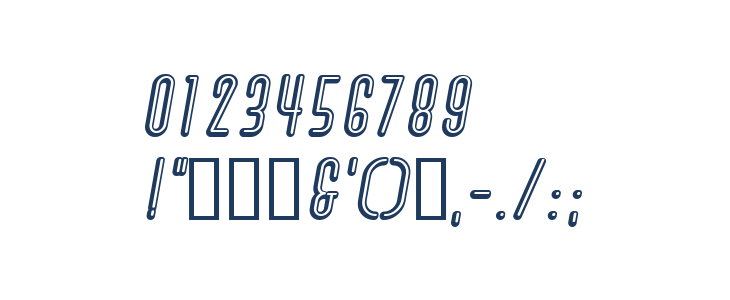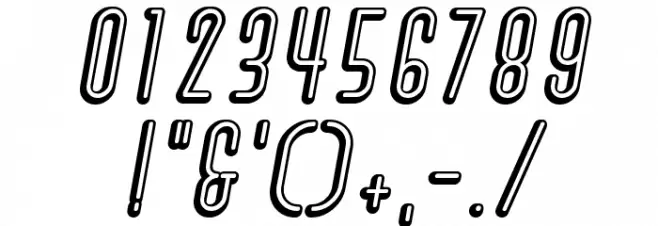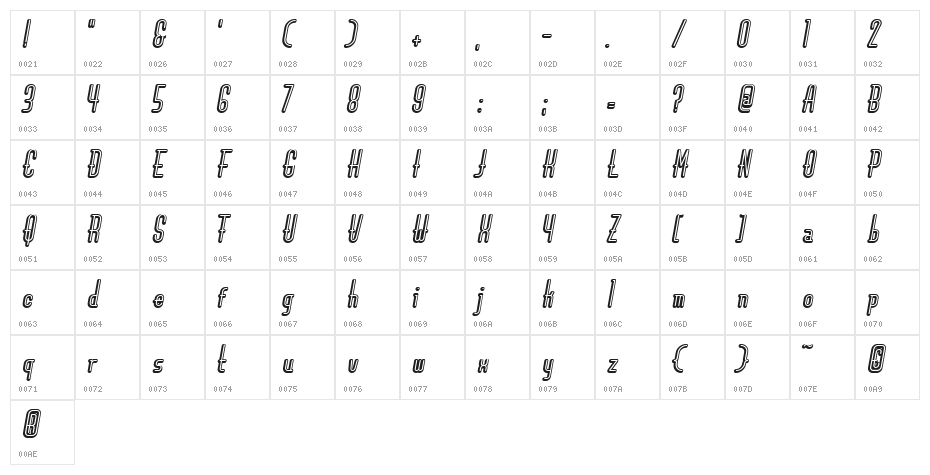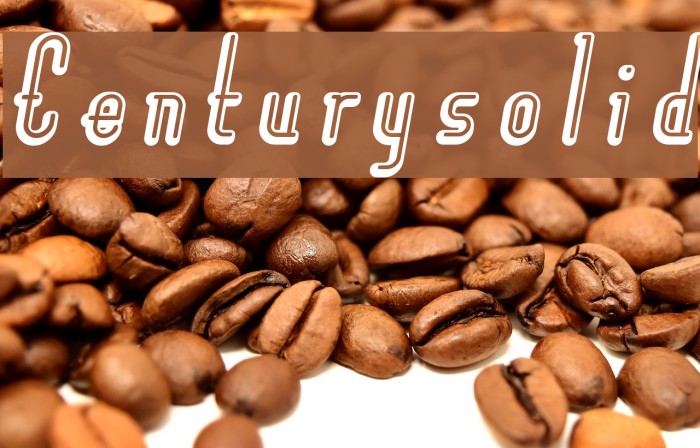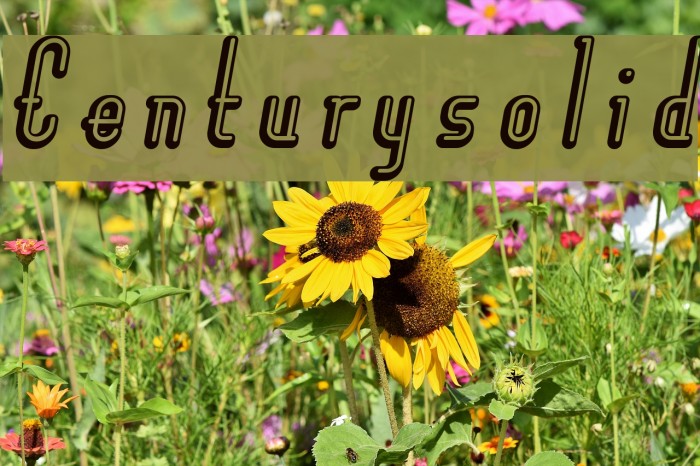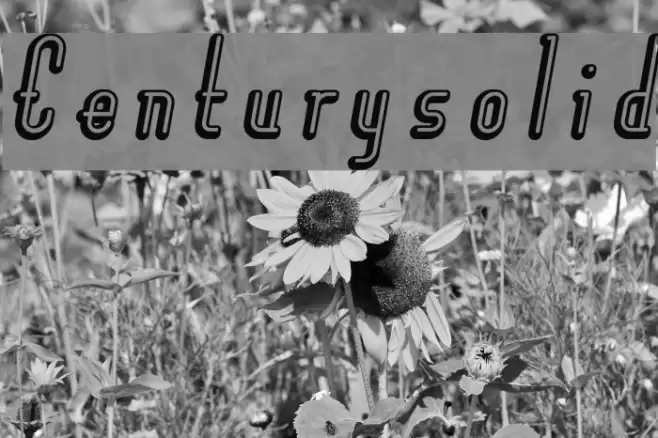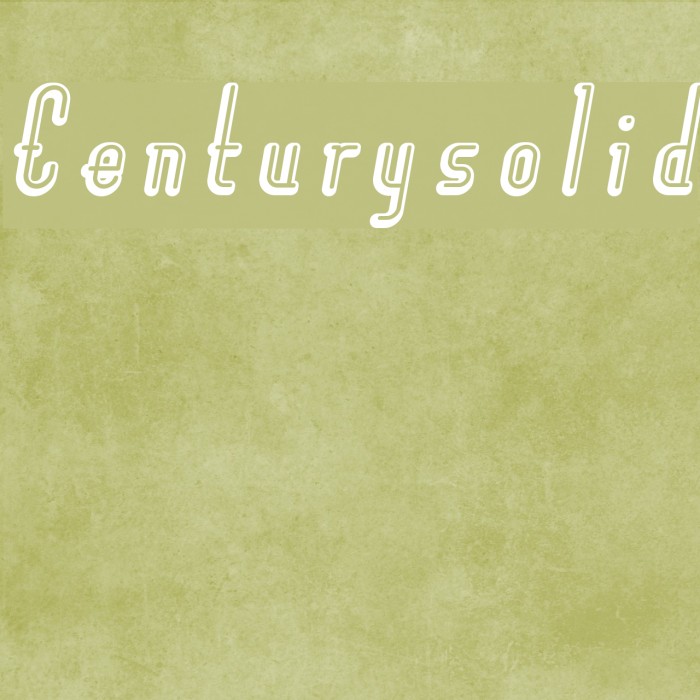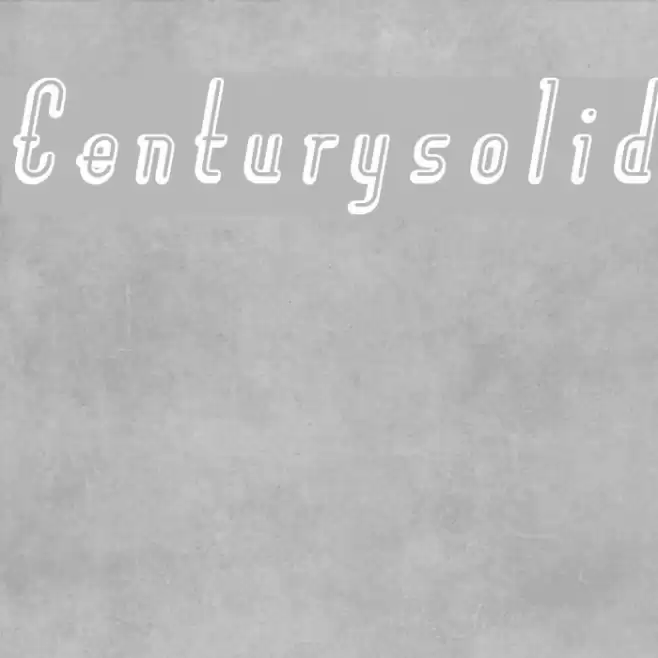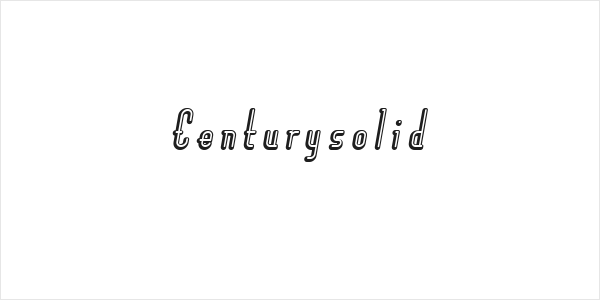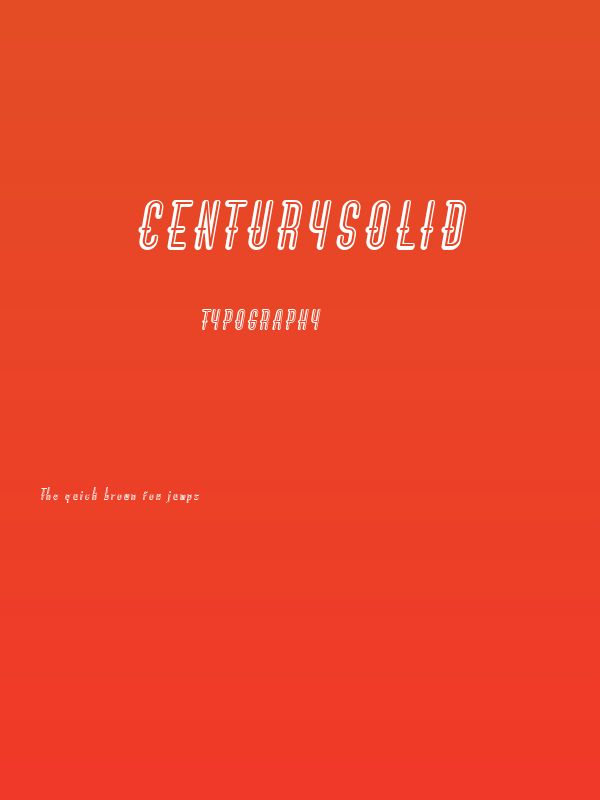
Centurysolid Font
Centurysolid Description
This font features a distinctive outline style with a modern twist, characterized by its hollow interior and bold outer lines. The uppercase letters are tall and narrow, giving a sense of elegance and sophistication. The lowercase letters maintain a consistent style, with rounded edges that add a touch of softness. Numbers and special characters follow the same design principles, ensuring uniformity across all glyphs. The overall appearance is both playful and professional, making it suitable for a variety of creative applications.